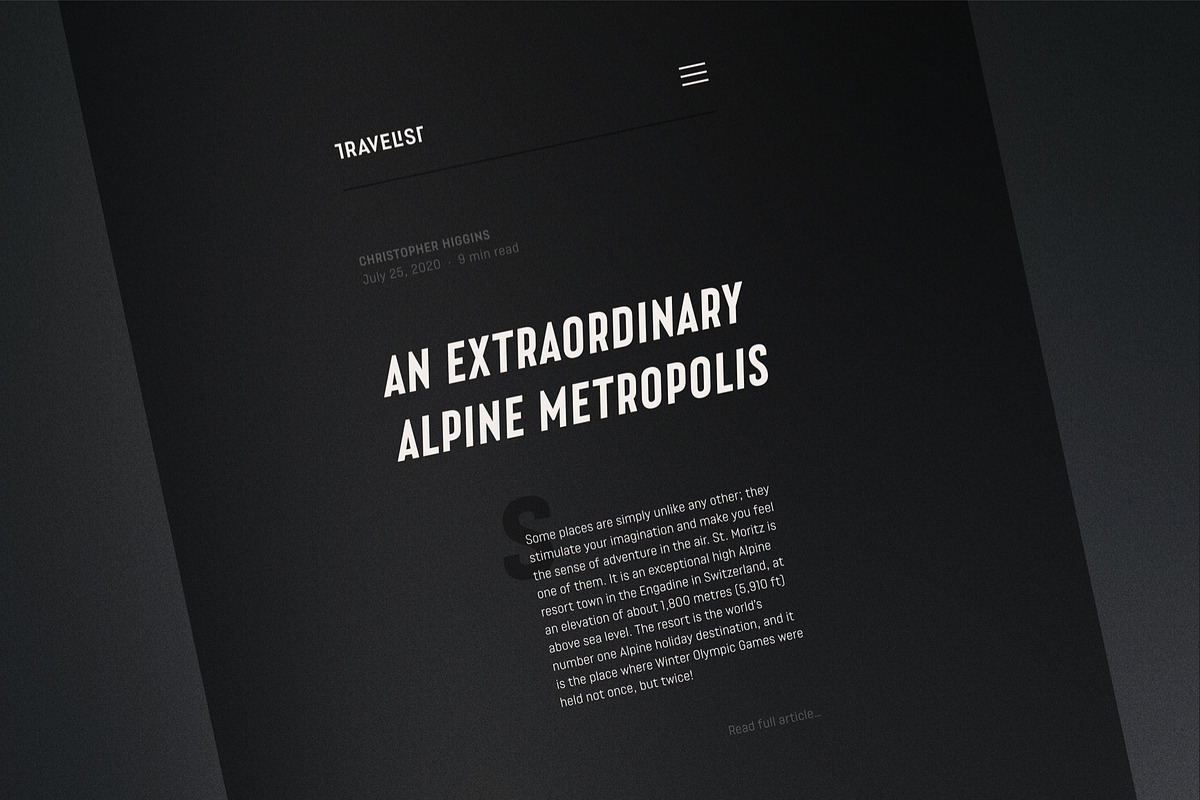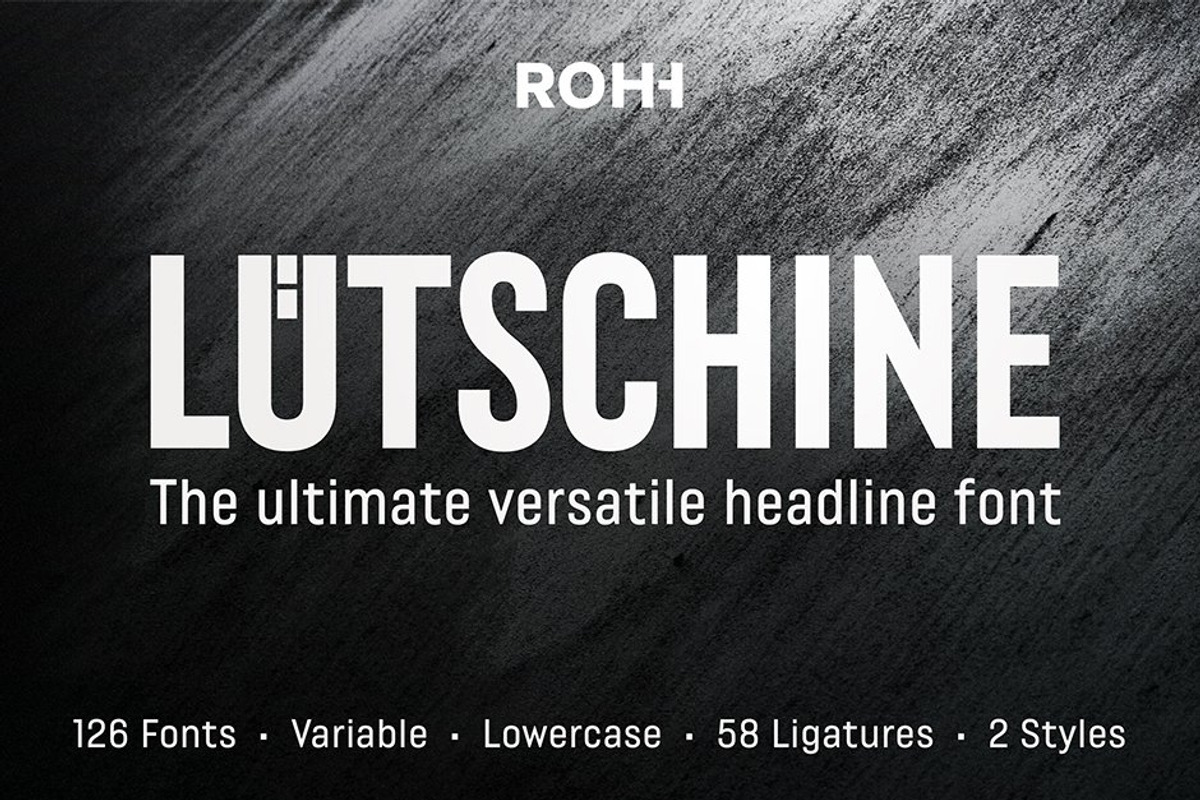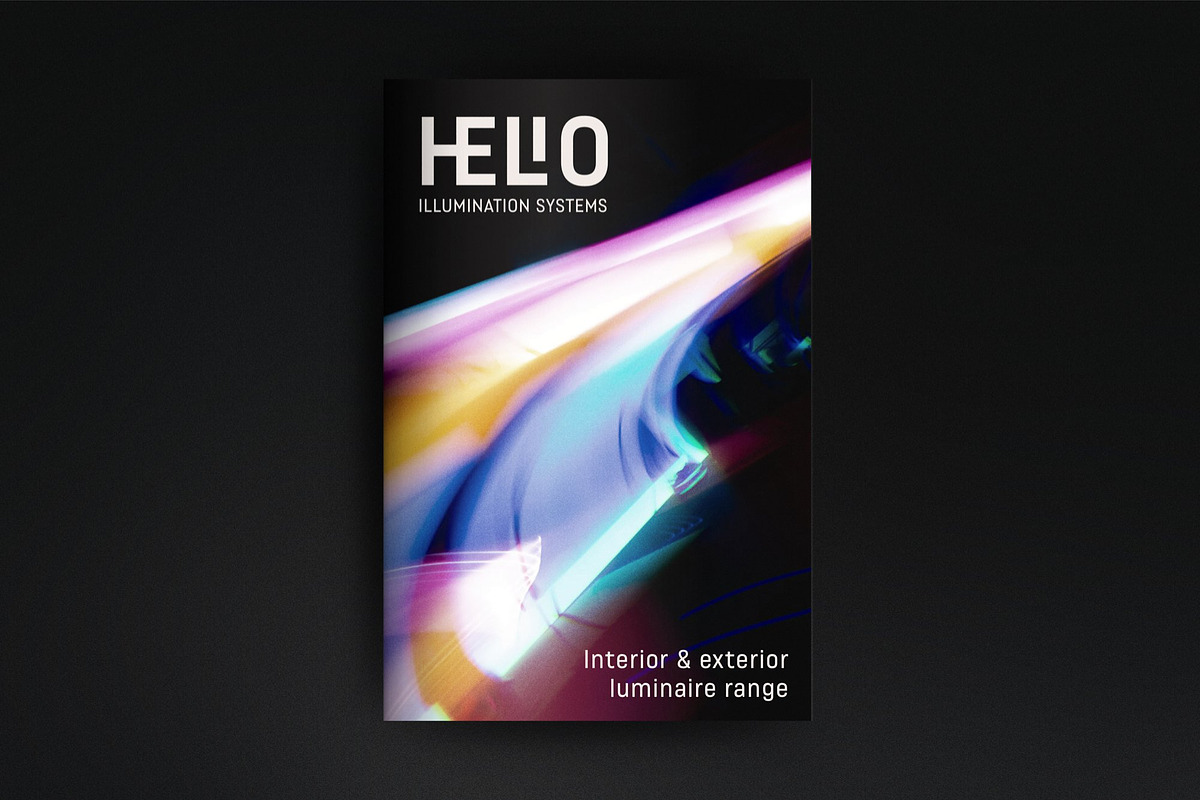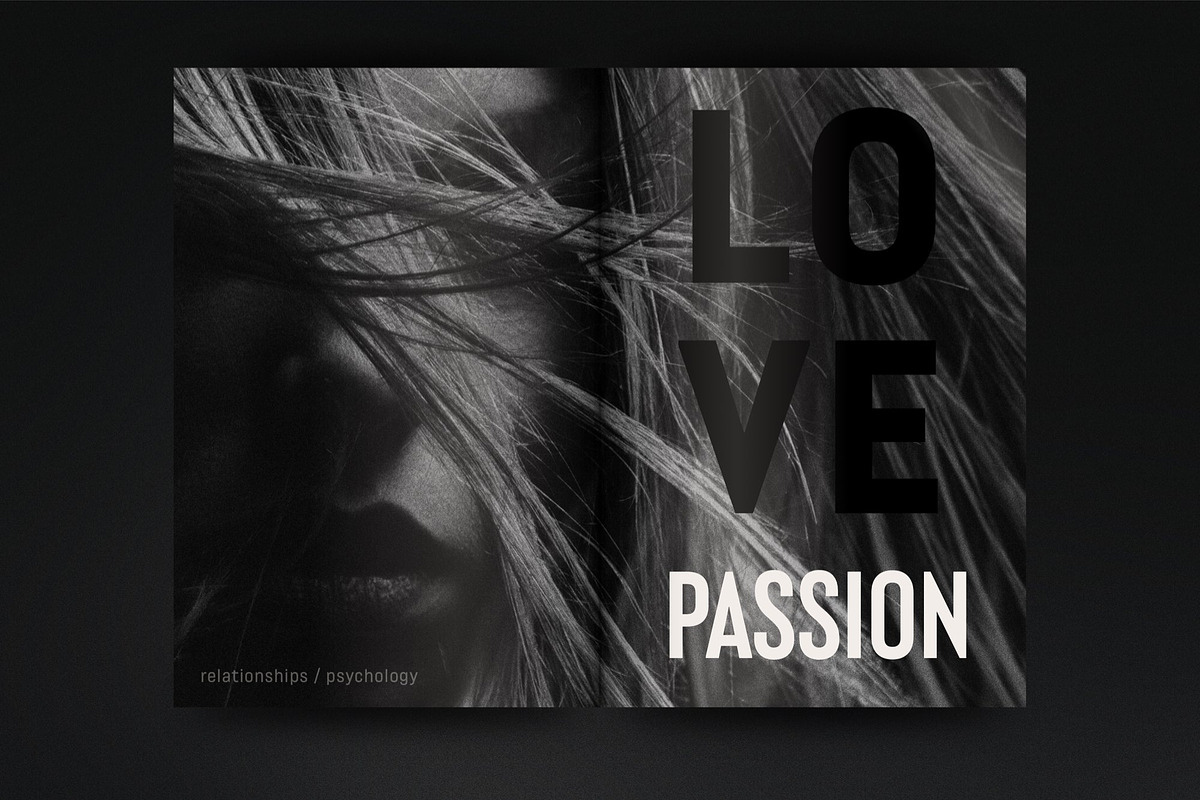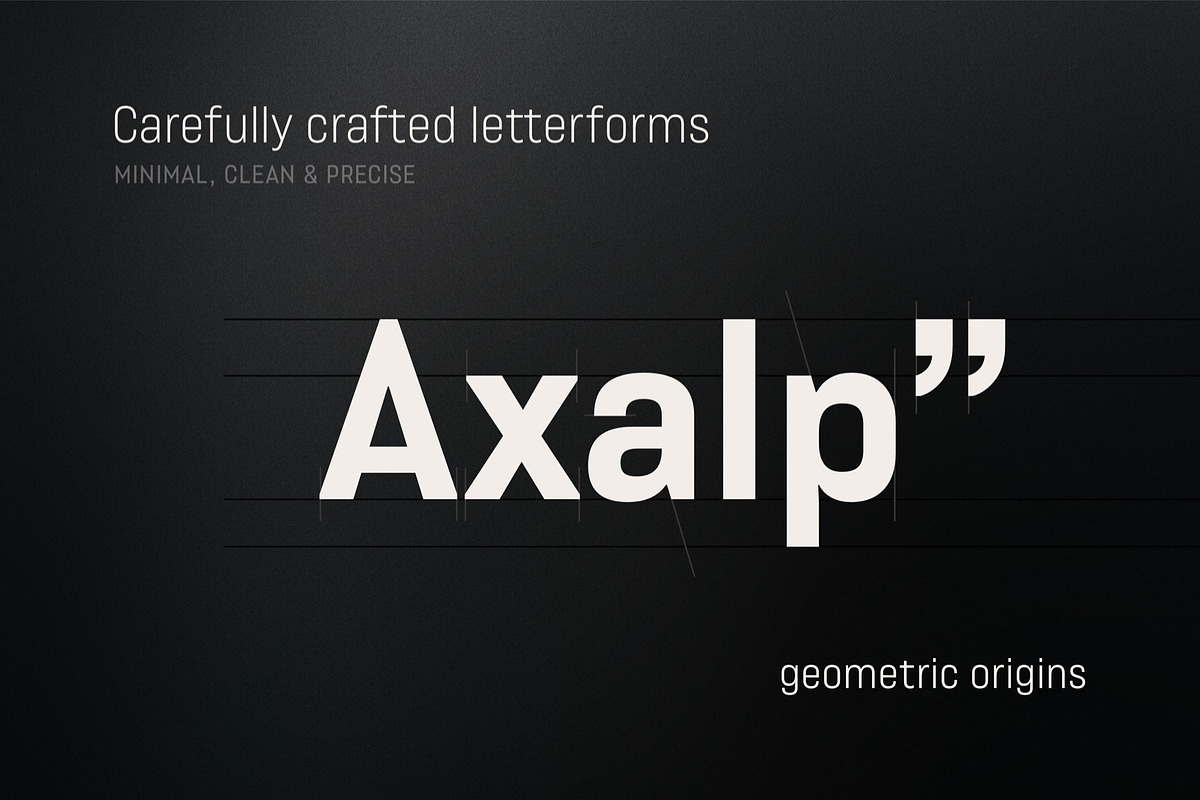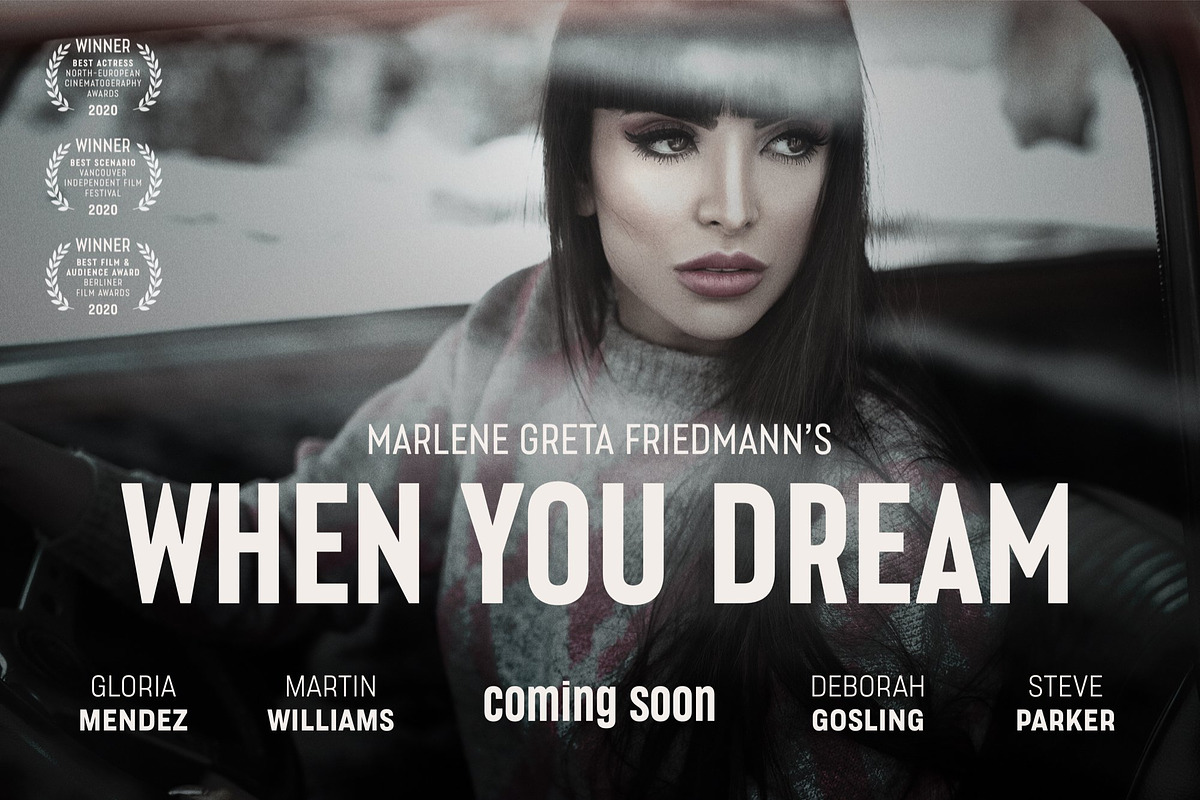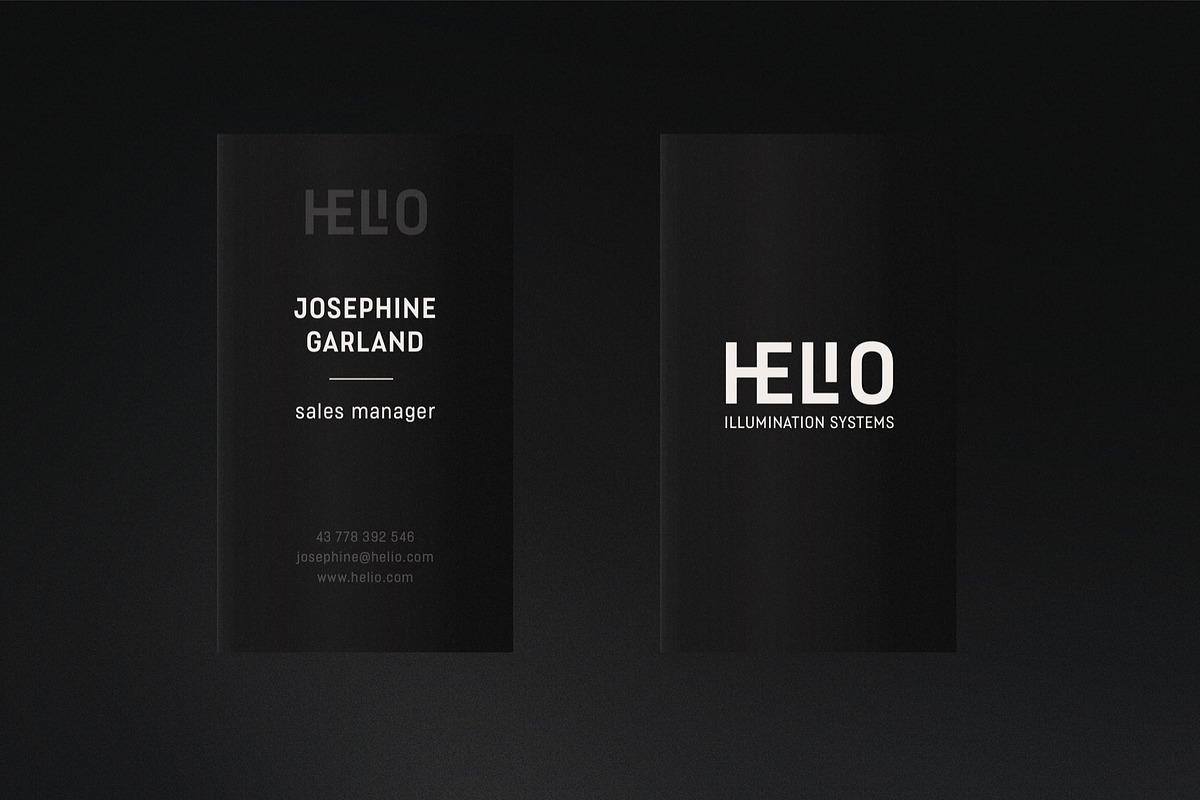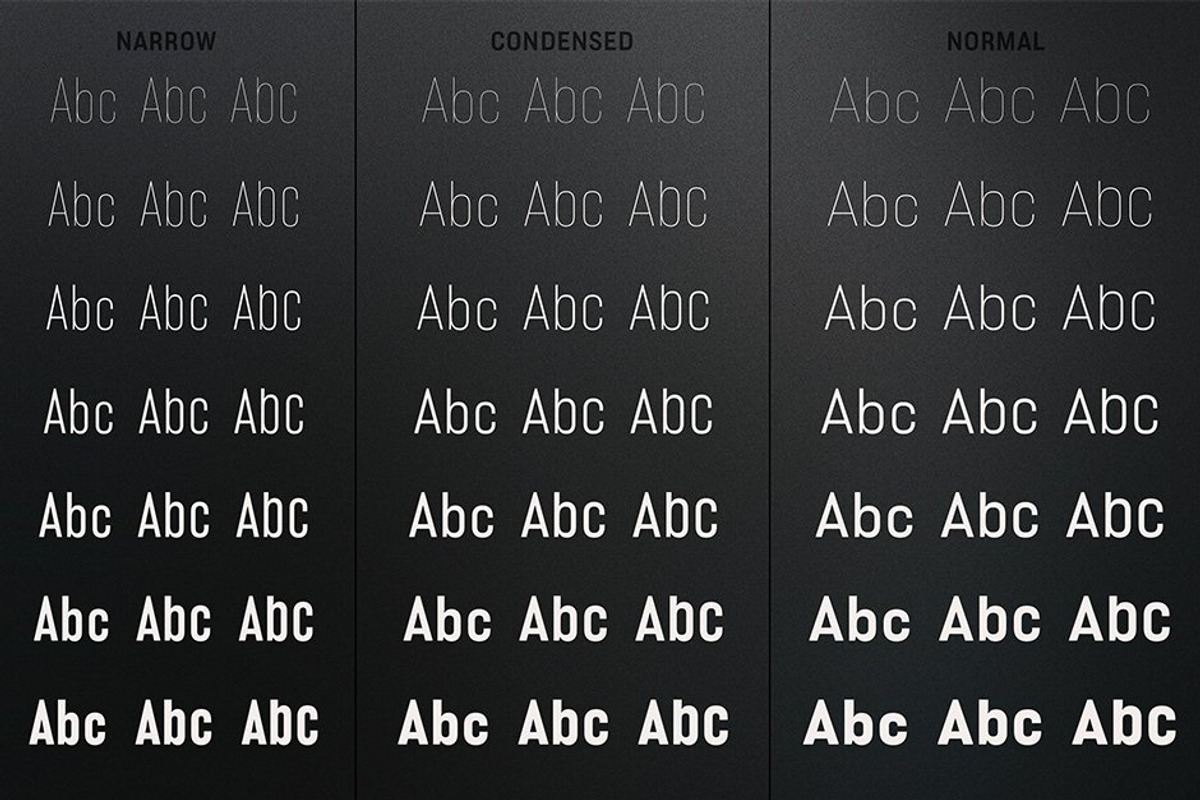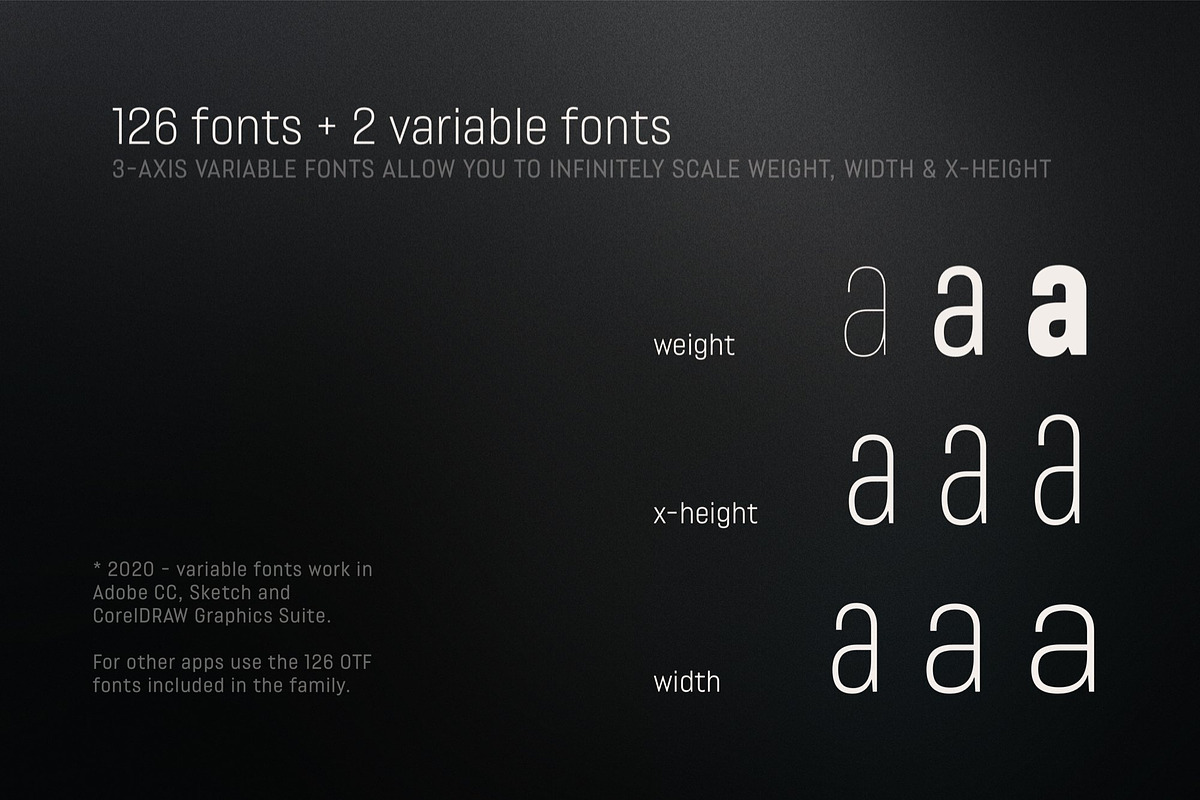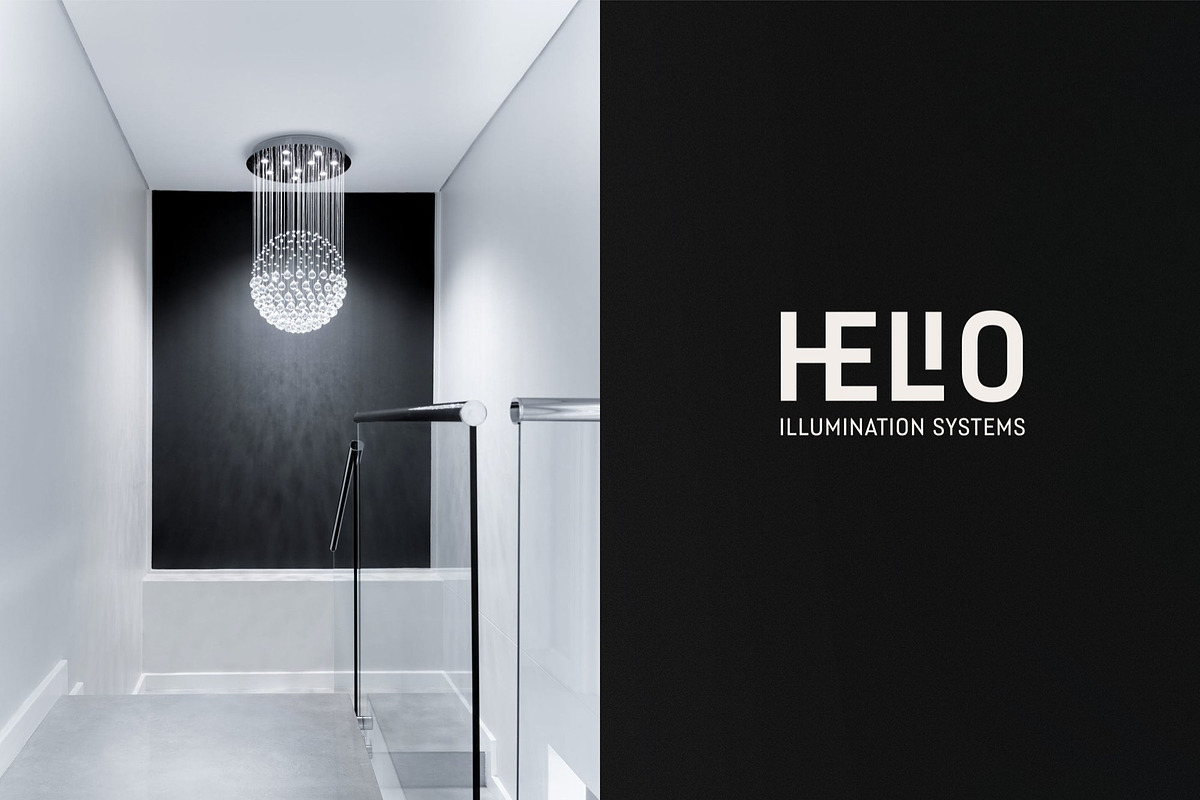
Lütschine Font Mega Family
Lütschine™ is an ultra-versatile, highly customisable sans serif family for headlines, branding and logo design. It consists of 126 carefully drawn and spaced styles as well as 2 variable fonts.
The family contains a lowercase alphabet that hugely broadens its versatility. Thanks to the lowercases and multiple widths it can be used not only as a powerful headline font, but it works very well in paragraph text, especially where space saving is needed.
Lütschine customization options include weight variants from hairline to extra bold, width variants from narrow to normal, as well as x-height variants for achieving different moods and legibility.
The family contains 2 variable 3-axis fonts. Variable fonts enable fluent and infinite changing of the variation interpolation, which means that the user is not bound anymore to the specific font styles defined by the type designer. It gives the user great freedom and a natural flow when working with type in one’s projects.
Lütschine consists of 126 fonts in 3 width variants and 3 x-height variants – 63 uprights and their corresponding true italics. The family has extended language support as well as a broad number of OpenType features, such as alternative stylistic sets, ligatures, titling alternates, contextual alternates, slashed zero, fractions, superscript, and subscript, ordinals, currencies, and symbols.
- Uppercase & lowercase characters
- Beautiful & balanced, modern letter forms
- Careful, precise spacing & kerning
- 126 styles (63 upright & 63 italics)
- 2 variable fonts (3 axes: weight, width, x-height) – infinite scaling
- 3 widths (narrow, condensed, normal)
- 3 x-height variants
- 7 weights + corresponding italics
- Hand drawn and adjusted italics for beautiful lines
- Uppercase ligatures for logo design
- Glyph count per font: 799
- OpenType features: stylistic alternates, ligatures, case sensitive forms, titling forms, fractions, superscript, subscript, contextual alternates, ordinals, currencies and symbols